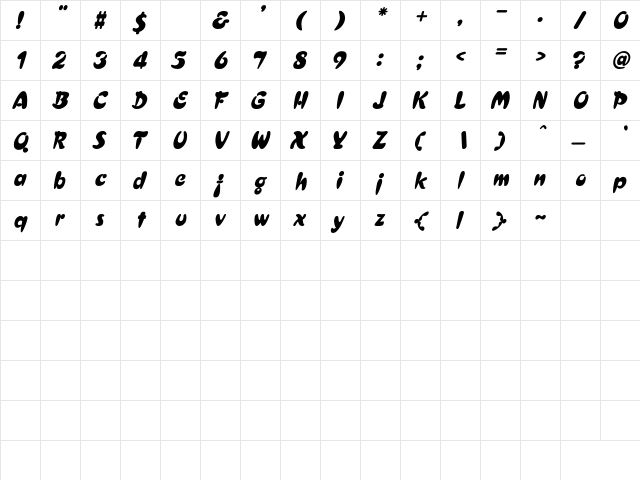
Electrik Italic Italic
Design Context for Electrik Italic Typeface
Electrik Italic is a composed and adaptable typeface that performs quietly and consistently across a wide range of design contexts. Its italic angle brings a sense of urgency and motion to the letterforms.